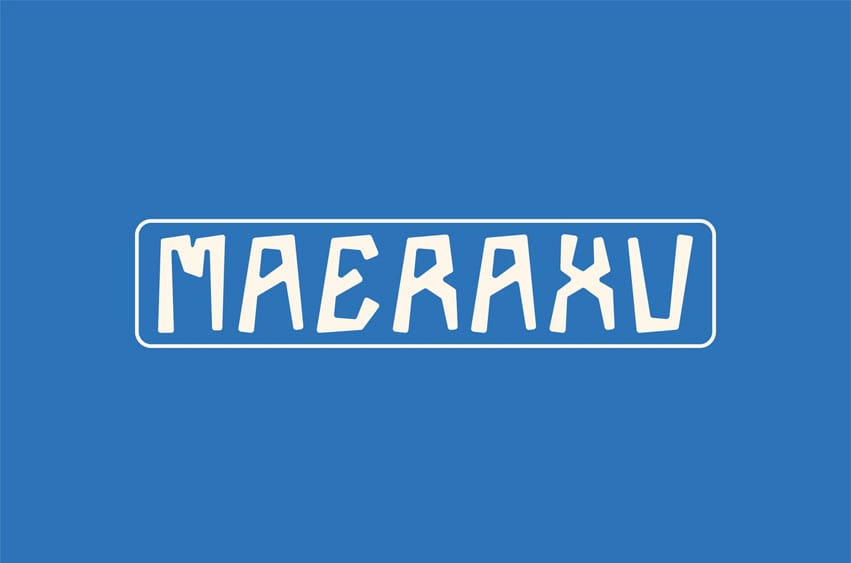
Maeraxu Font is a fun and playful sans-serif typeface designed to bring energy and joy to your projects. With its lively and quirky character, it’s perfect for logos, branding, posters, children’s books, packaging, and creative designs. Let Maeraxu add a cheerful and dynamic touch to your work!